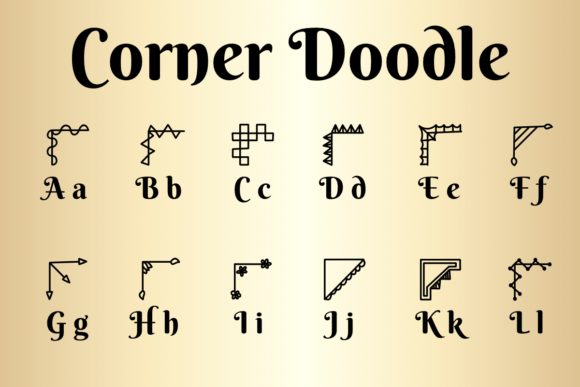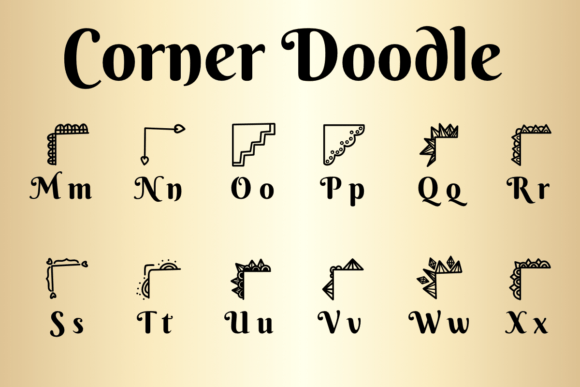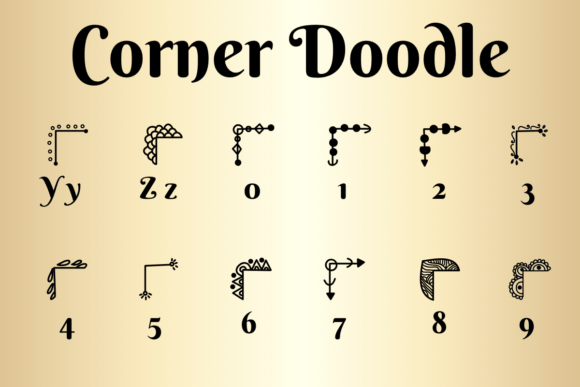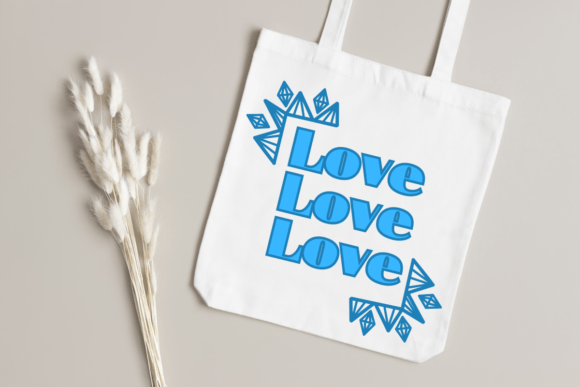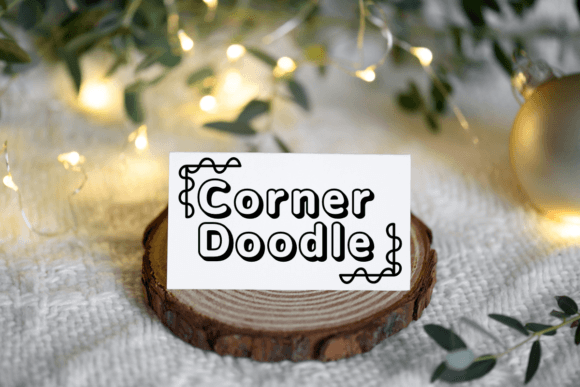
Introducing Corner Doodle Font: Elevate Your Creative Projects with a Personal Touch
Are you a designer, crafter, or DIY enthusiast looking for a unique and creative way to add a personal touch to your projects? Look no further than the Corner Doodle Font, a charming dingbats font with a sketch theme style that’s perfect for a wide range of creative endeavors. In this article, we’ll explore the features and benefits of Corner Doodle, and show you how it can enhance your wedding invitations, DIY projects, crafts, decorations, logos, and more.
What is Corner Doodle Font?
Corner Doodle is a dingbats font that features a delightful sketch theme style, complete with intricate doodles and illustrations that add a touch of whimsy and personality to any project. This font is perfect for designers and crafters who want to add a hand-drawn, organic feel to their work, without sacrificing legibility or style.
Key Features of Corner Doodle Font
- Unique Sketch Theme Style: Corner Doodle features a distinctive sketch theme style that’s perfect for adding a personal touch to your projects.
- Dingbats Font: This font is a dingbats font, which means it’s comprised of illustrations and symbols rather than traditional letters and numbers.
- Highly Versatile: Corner Doodle can be used for a wide range of creative projects, from wedding invitations and DIY crafts to logos and decorations.
- Easily Customizable: This font is easy to customize, allowing you to adjust the size, color, and style to suit your needs.
Uses for Corner Doodle Font
Corner Doodle is an incredibly versatile font that can be used for a wide range of creative projects, including:
- Wedding Invitations: Add a touch of elegance and whimsy to your wedding invitations with Corner Doodle.
- DIY Crafts: Use Corner Doodle to add a personal touch to your DIY crafts, such as scrapbooking, card making, and more.
- Decorations: Create custom decorations, such as garlands, banners, and signs, using Corner Doodle.
- Logos: Use Corner Doodle to create unique and memorable logos for your business or brand.
- Social Media Graphics: Add a touch of personality to your social media graphics, such as Facebook posts, Instagram stories, and more.
Tips for Using Corner Doodle Font
Here are a few tips for getting the most out of Corner Doodle:
- Experiment with Different Sizes: Try out different sizes to see how Corner Doodle looks in various contexts.
- Mix and Match: Combine Corner Doodle with other fonts and illustrations to create a unique and eye-catching design.
- Use it Sparingly: Don’t be afraid to use Corner Doodle sparingly to add a touch of personality to your design.